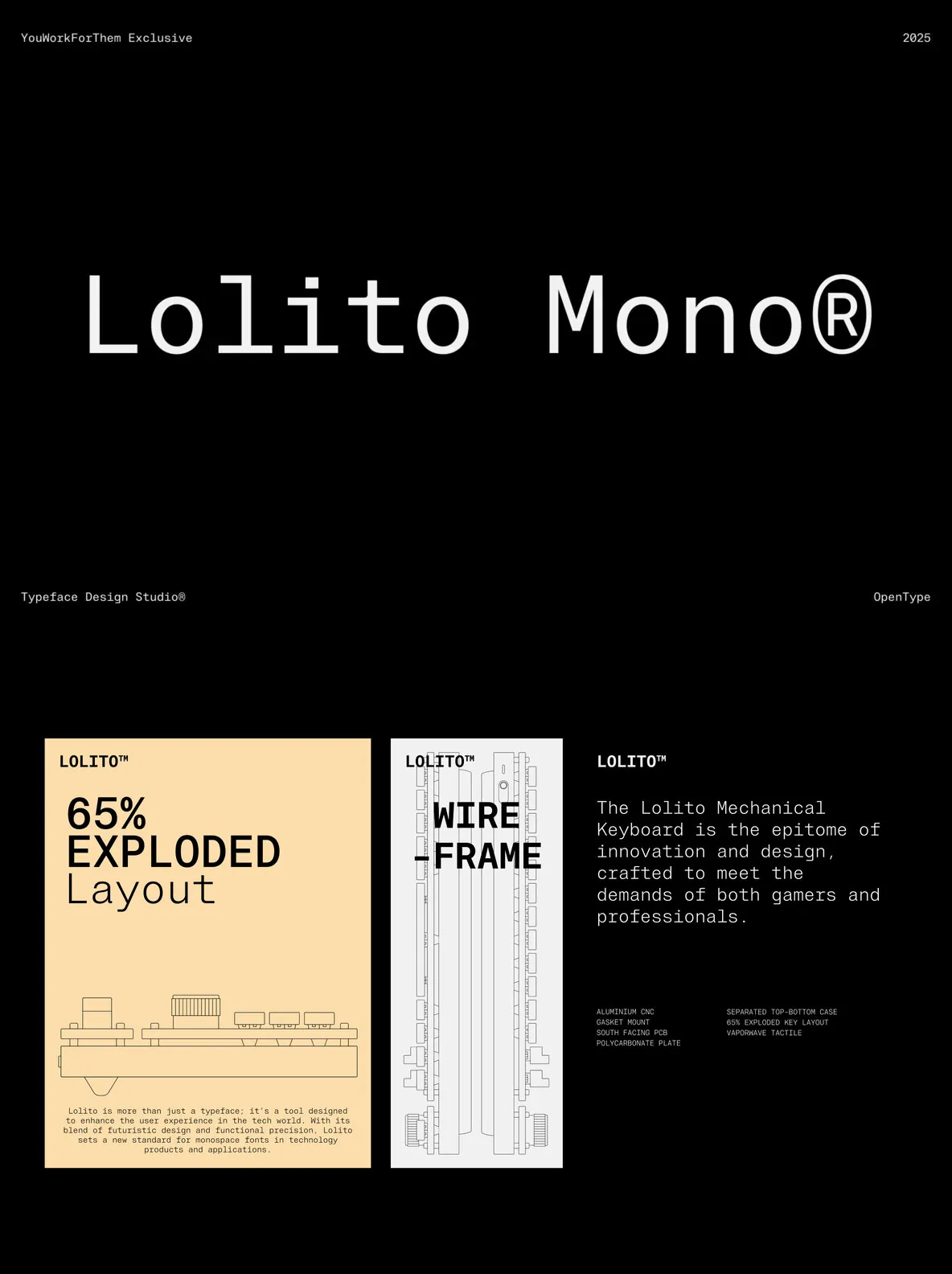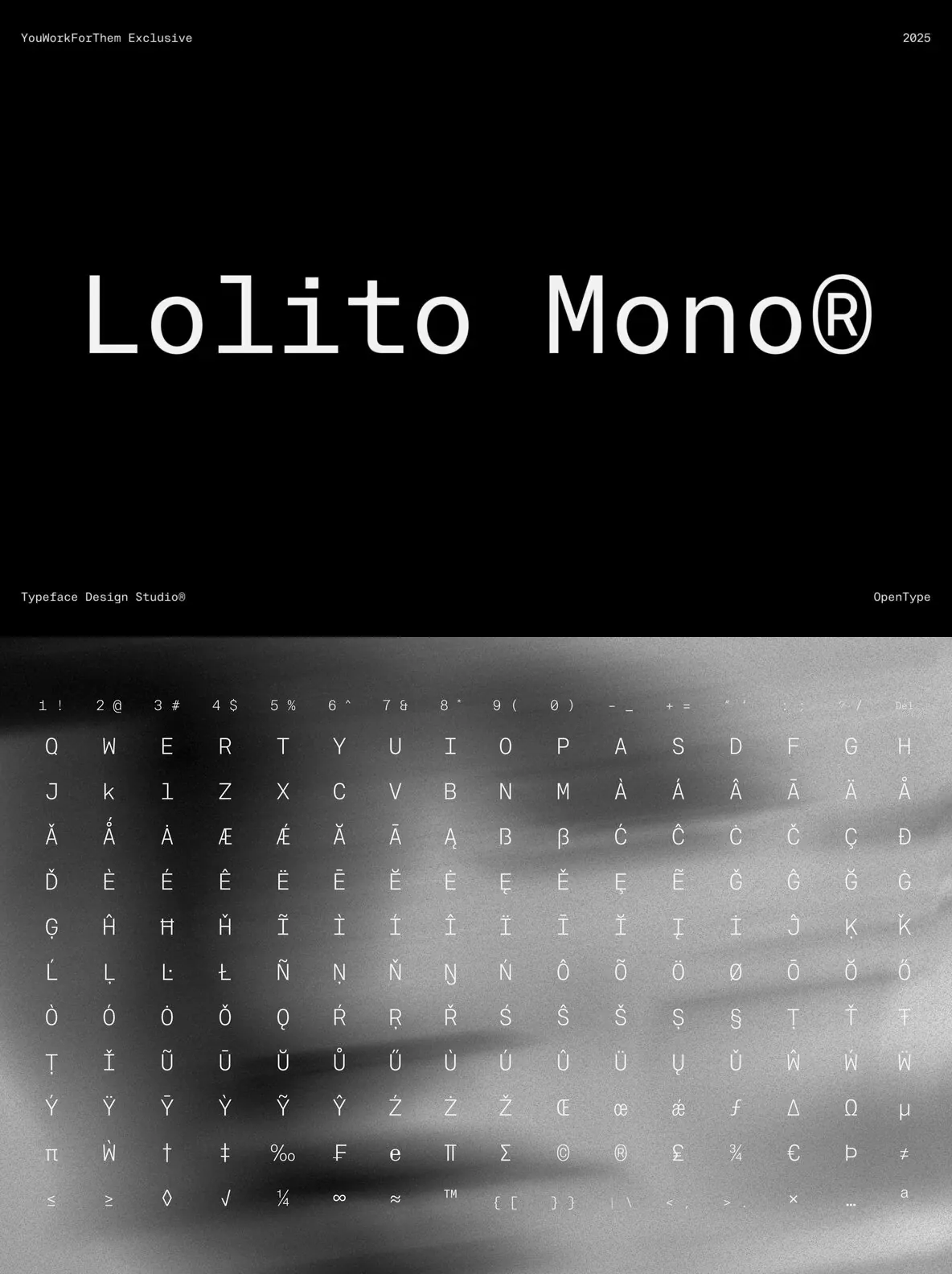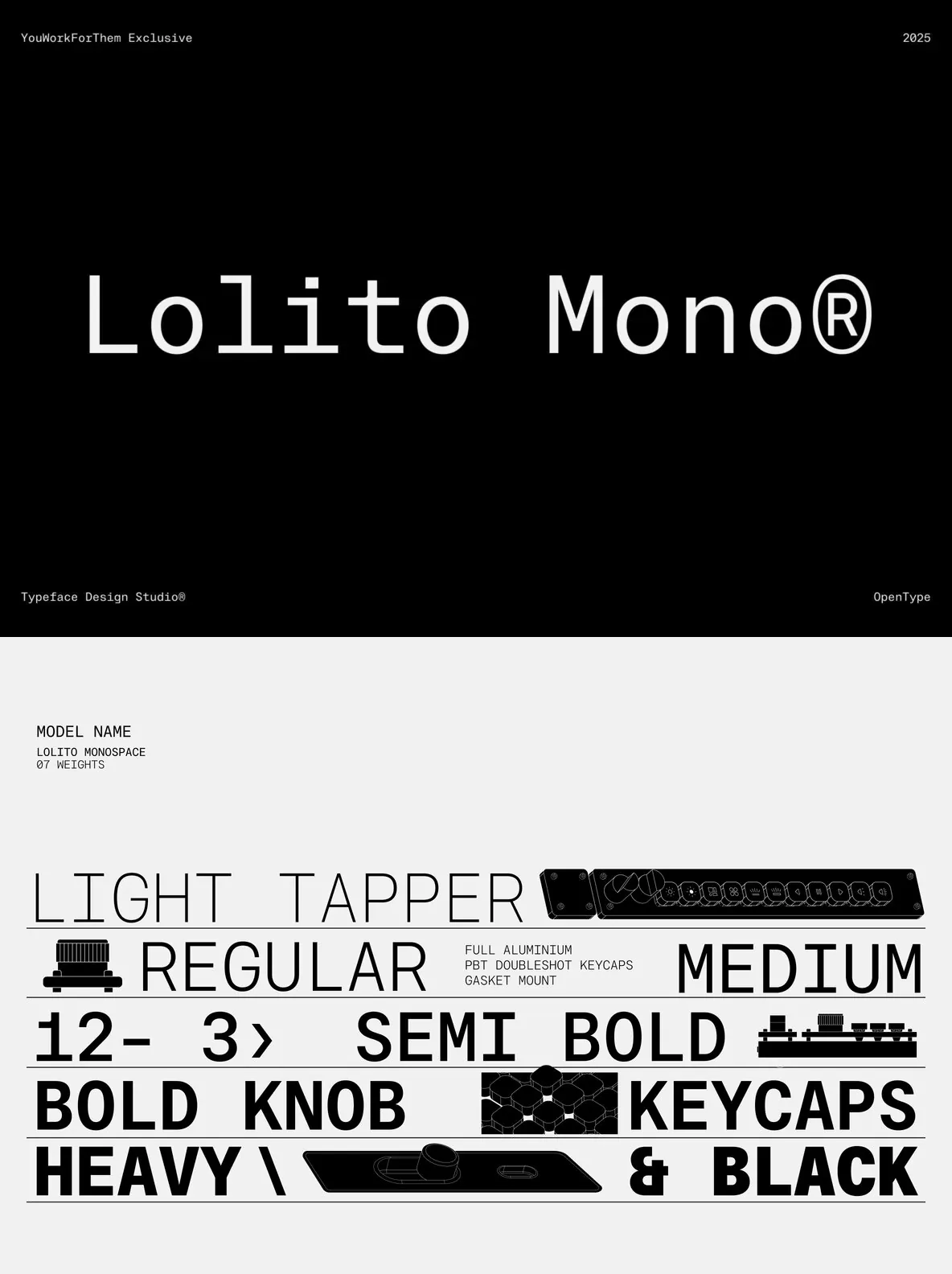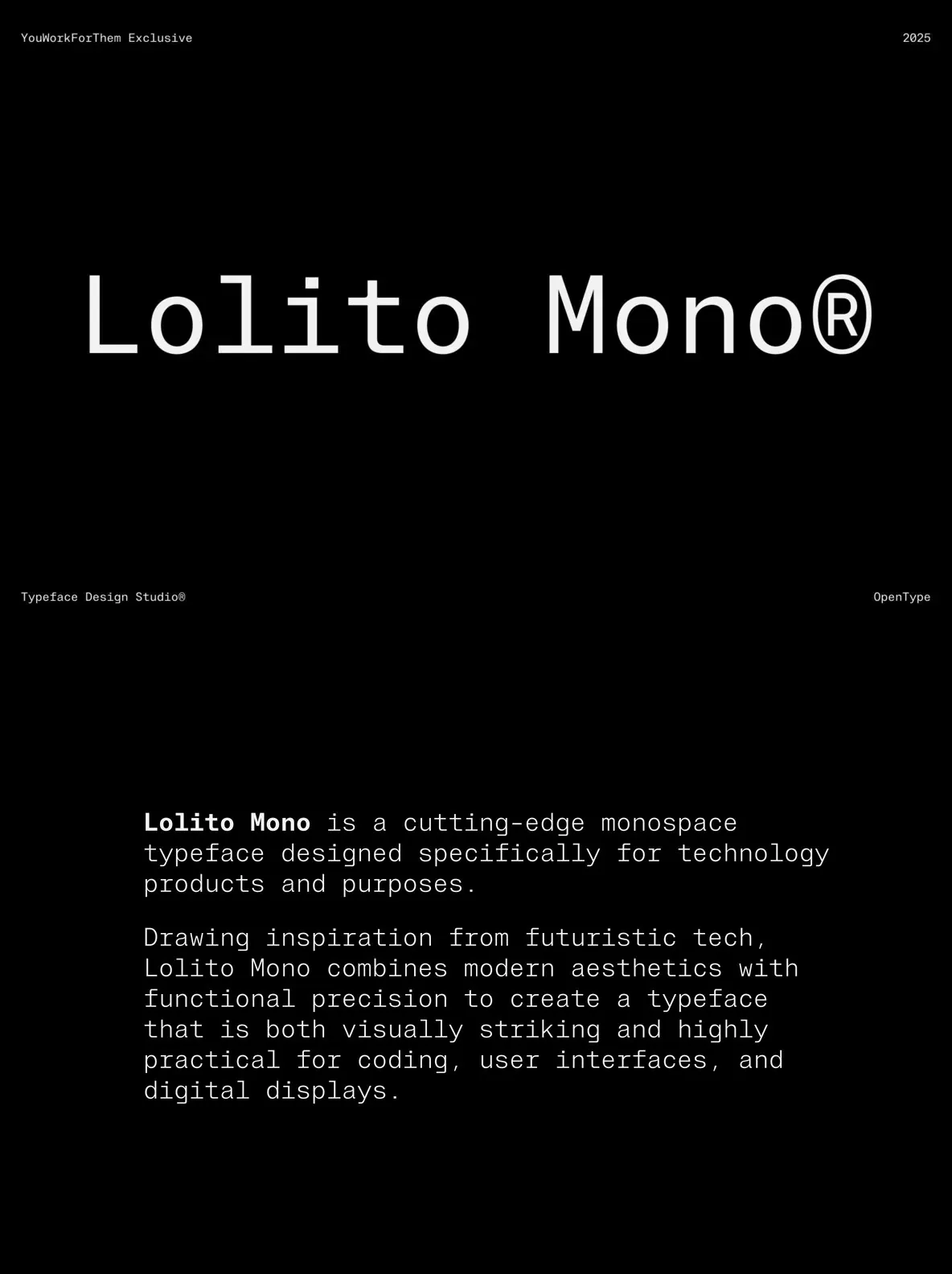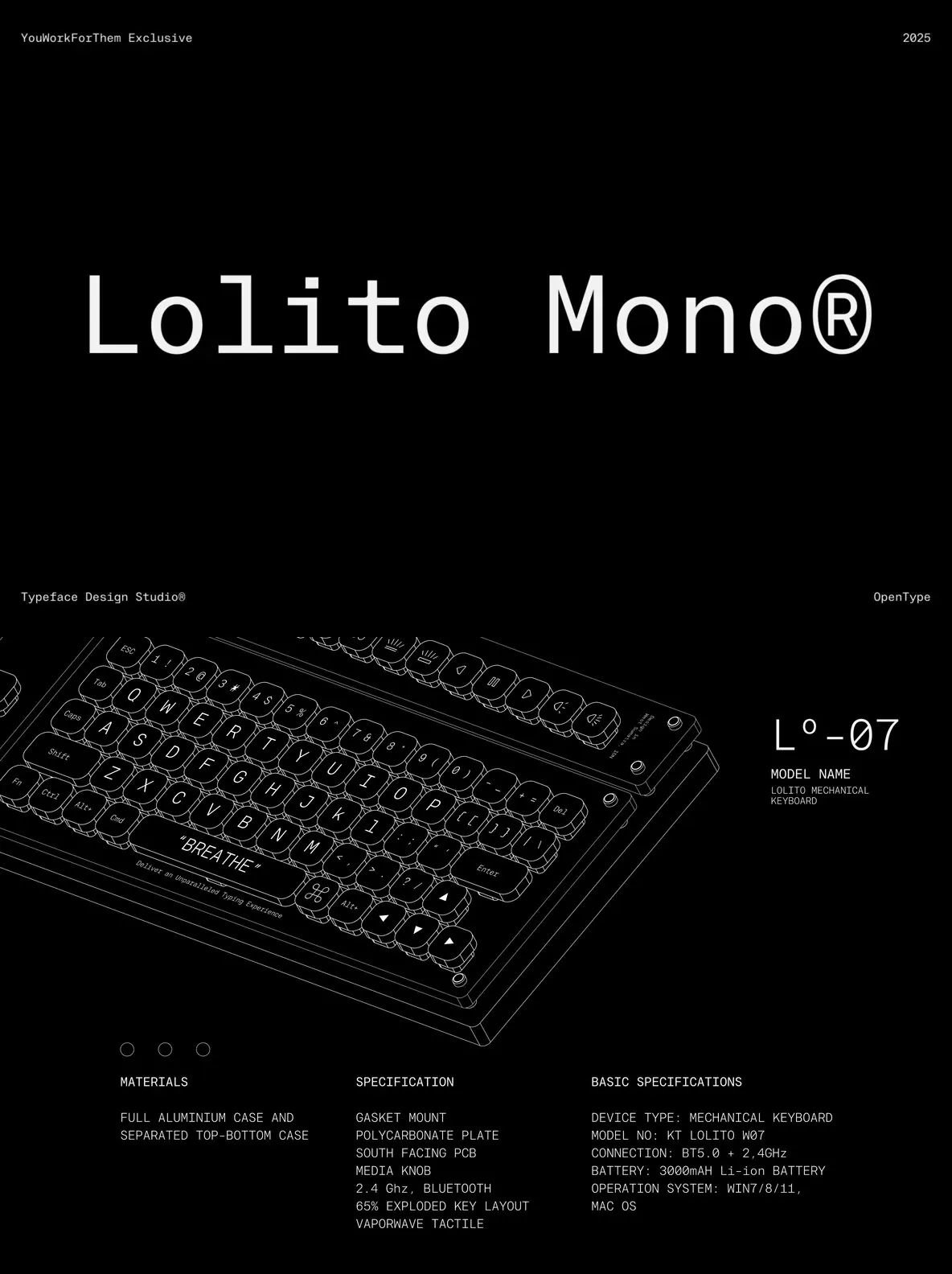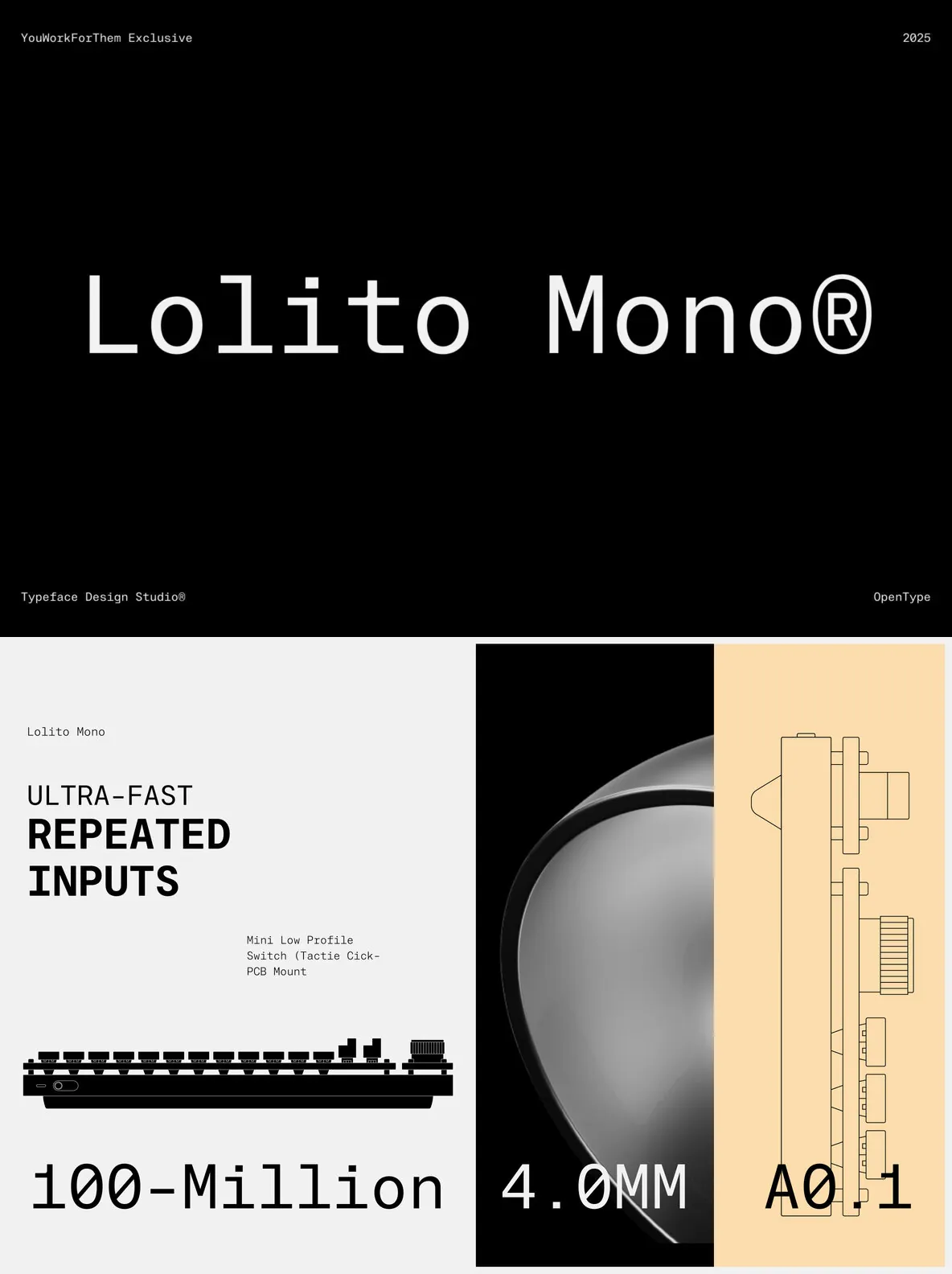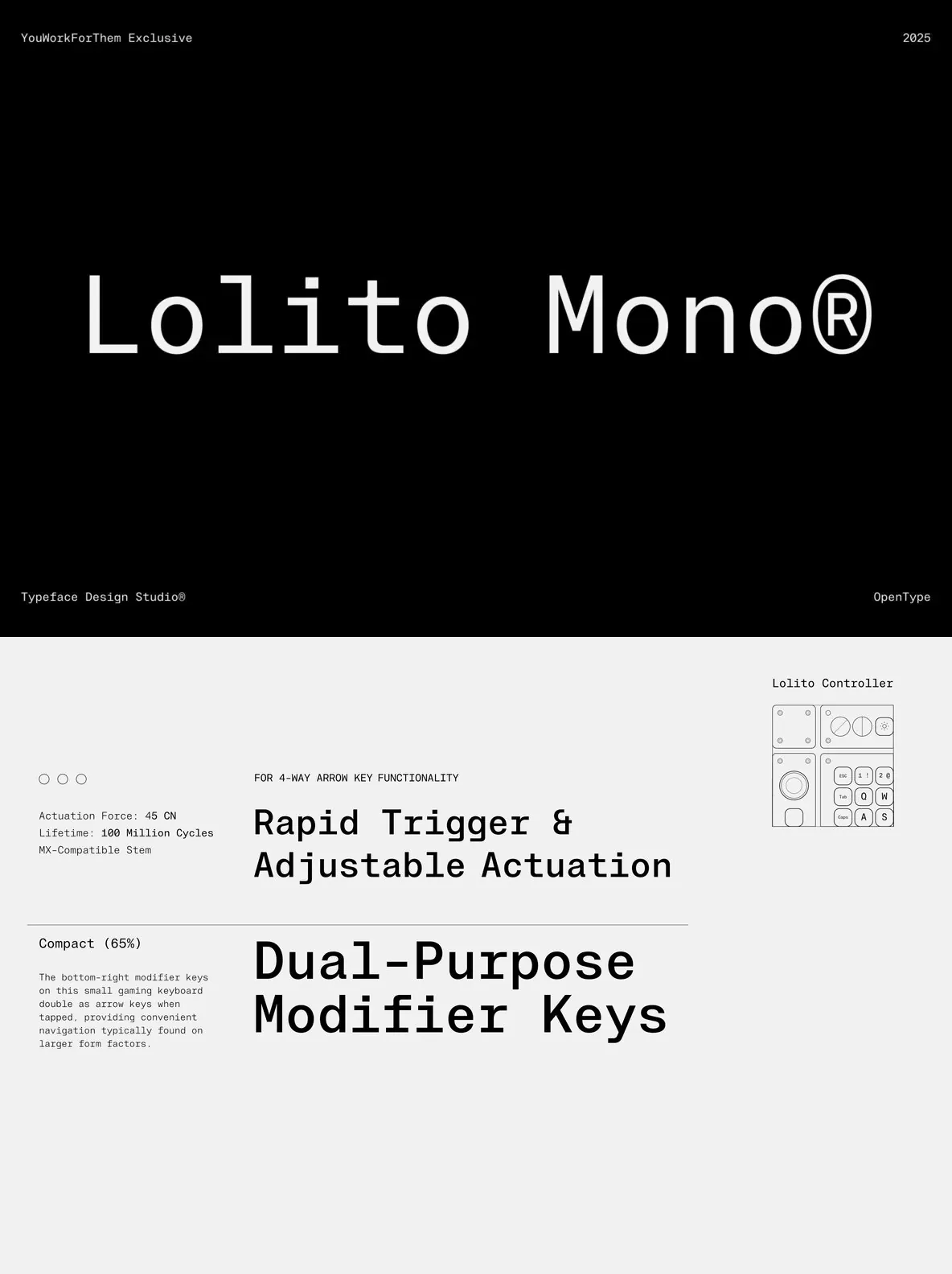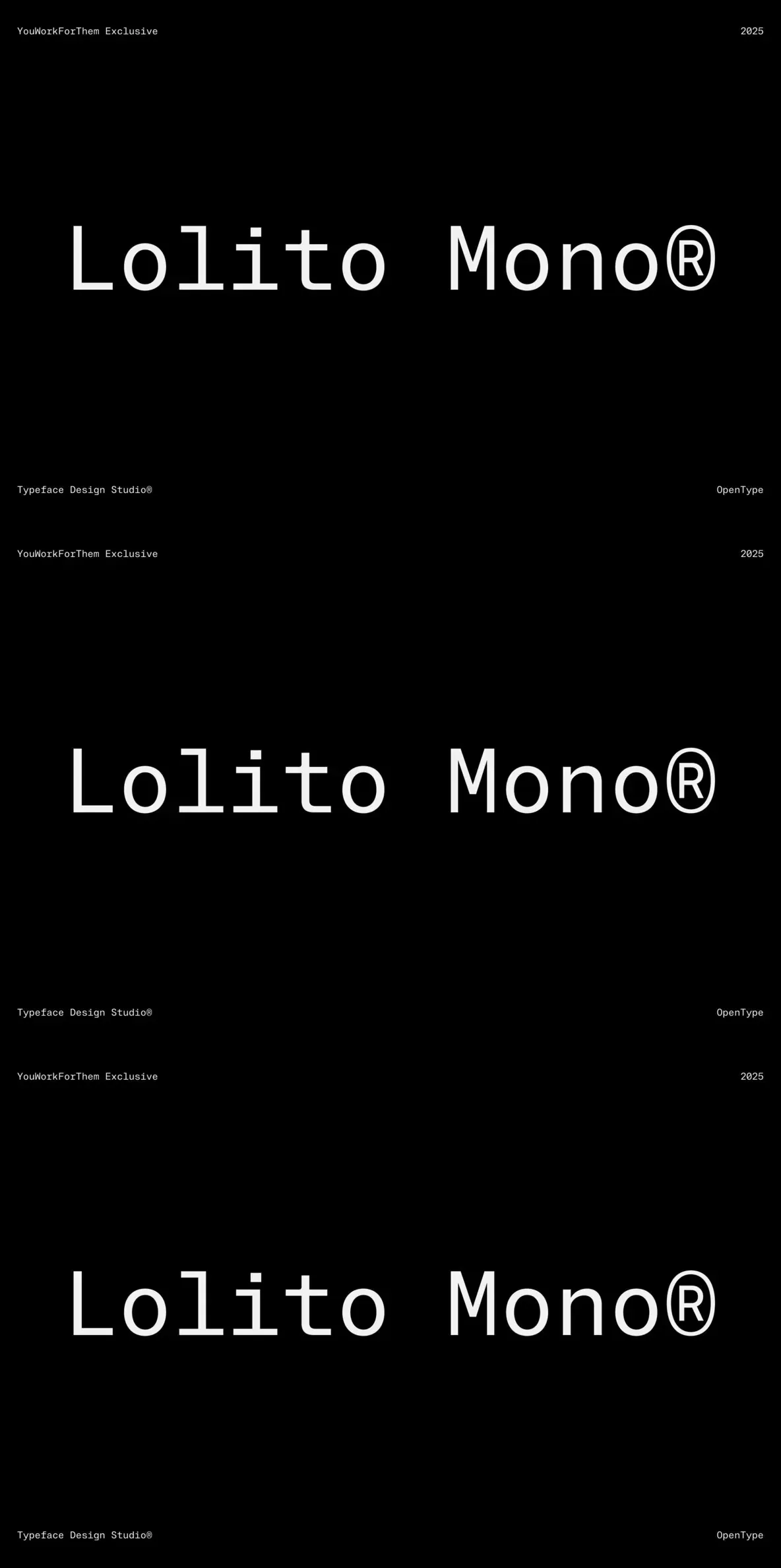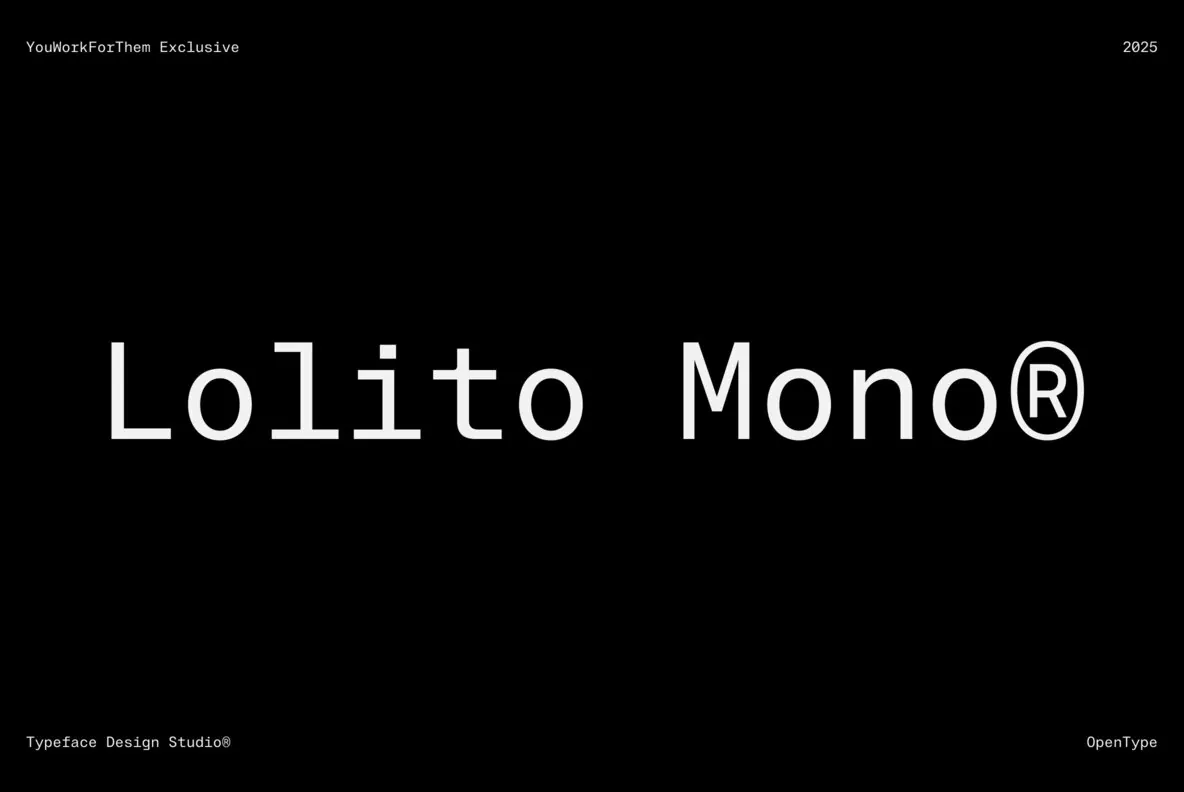
Lolito Mono: Futuristic Precision in a Monospace Design
Lolito Mono is a contemporary monospace typeface, designed with a focus on technology-driven applications. Exclusively available at YouWorkForThem, this font draws its aesthetic inspiration from the world of advanced tech, seamlessly blending modern visuals with functional clarity. Ideal for coding, user interfaces, and digital displays, Lolito Mono offers a distinctive presence that is both striking and pragmatic.
Going beyond mere visual appeal, Lolito Mono is crafted to enhance user experience within technological environments. Its futuristic design paired with functional accuracy sets a new benchmark for monospace fonts in tech-related projects.